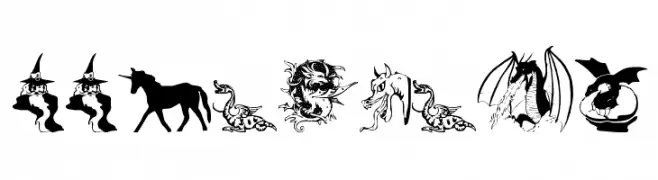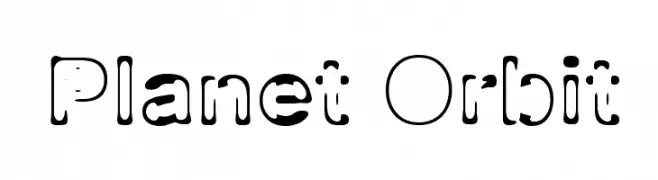
A collection of playful, baby-themed icons and illustrations.
A whimsical font with characters inside fish shapes, perfect for playful designs.
A decorative font with medieval and fantasy-inspired elements, perfect for thematic designs.
A futuristic, stencil-like font with geometric shapes and rounded edges.